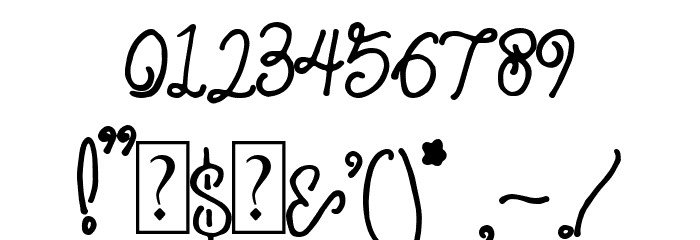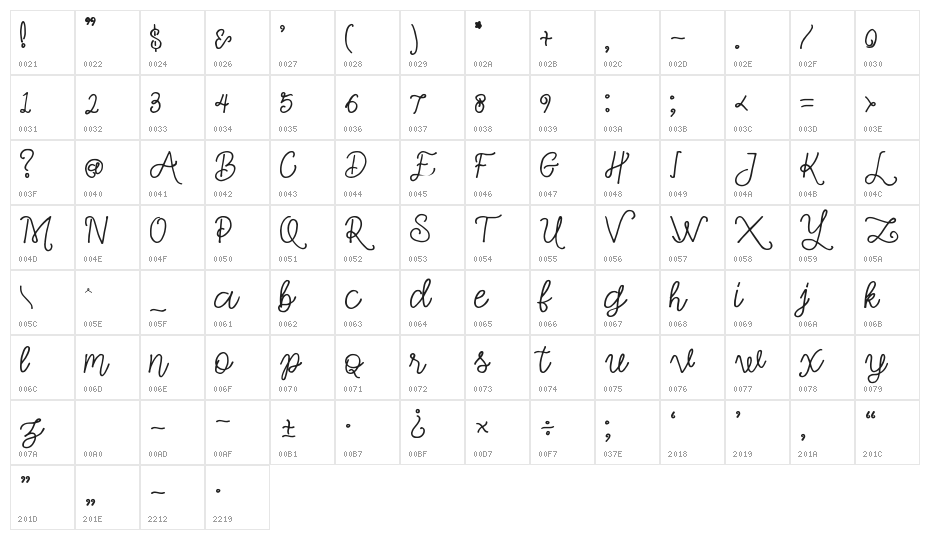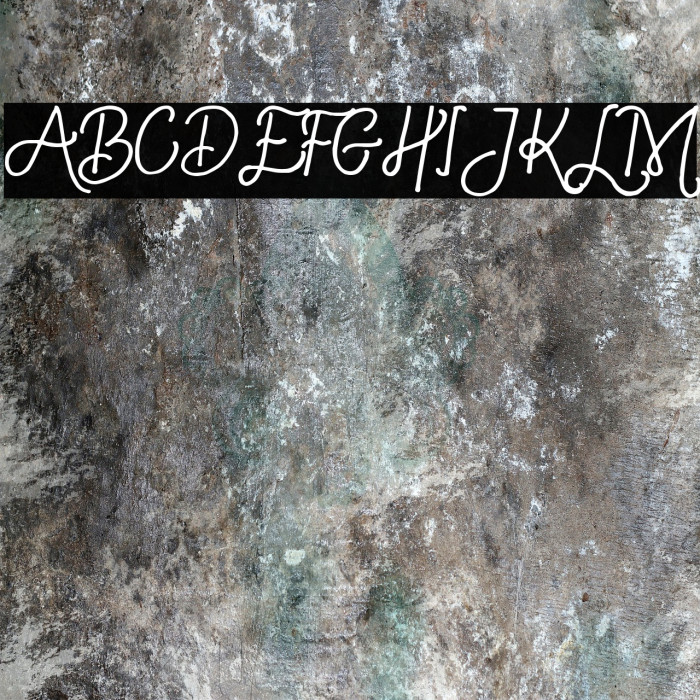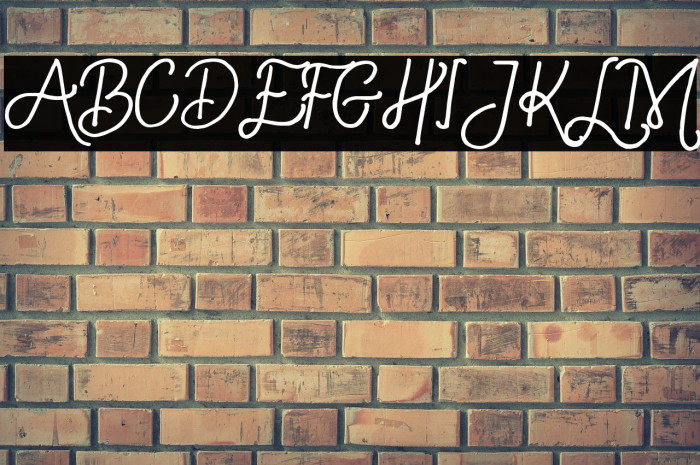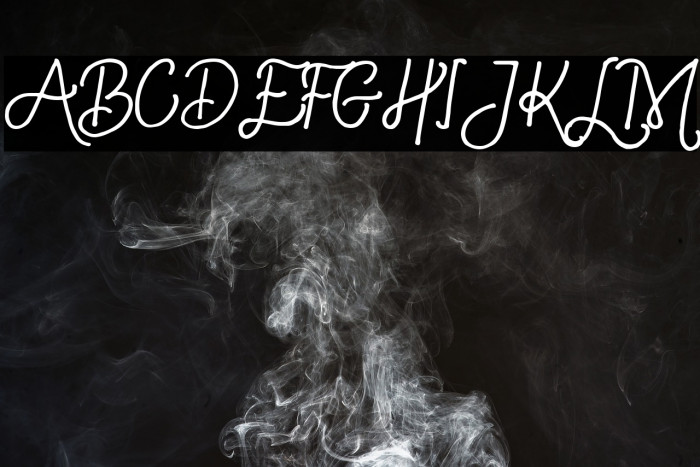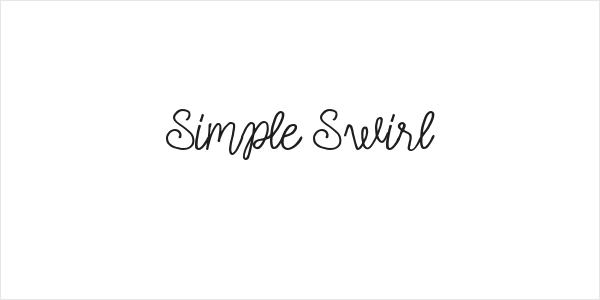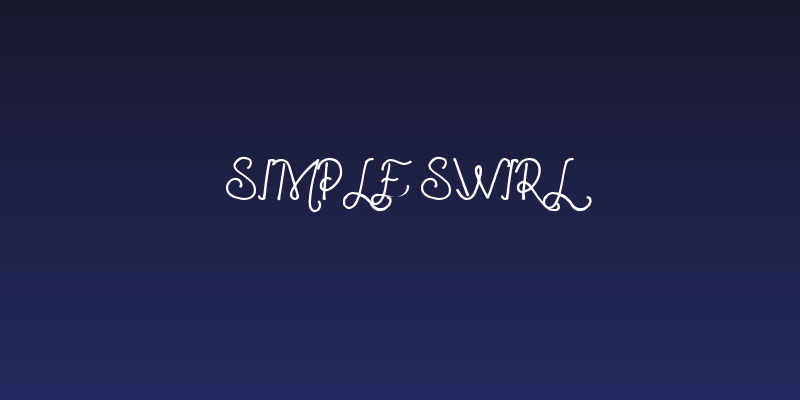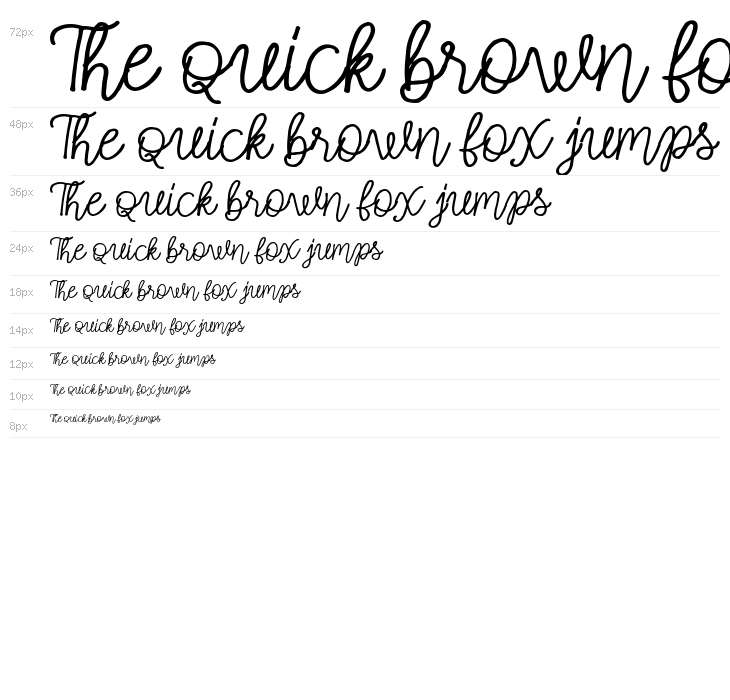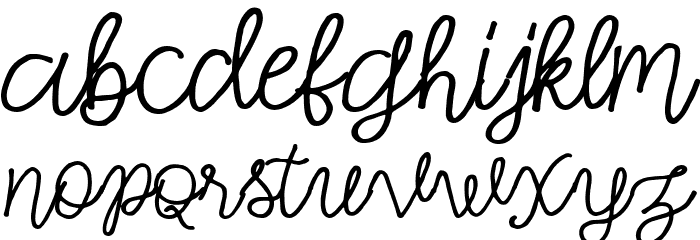
Simple Swirl Font
Simple Swirl Description
This font features a playful and elegant script style with swirling, cursive strokes. The uppercase letters are characterized by their flowing lines and decorative loops, giving them a whimsical appearance. The lowercase letters maintain a consistent cursive style, with smooth connections between each character. Numbers and special characters are designed with the same fluidity, incorporating subtle curves and embellishments. The overall look is both sophisticated and approachable, making it suitable for a variety of creative projects.
| Use Case | Logos, Invitations, Decorative Text |
| Proposed Projects | Ideal for wedding invitations, greeting cards, branding projects, and decorative signage. |